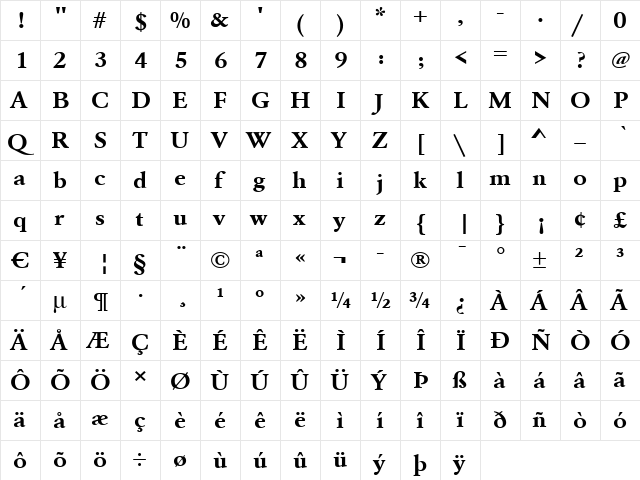
LionelBeckerExtended Bold
Design Context for LionelBeckerExtended Typeface
LionelBeckerExtended takes a measured approach to typography — its balanced proportions and neutral character make it a reliable workhorse for both digital and print work. The heavy weight commands attention and anchors typographic hierarchies.